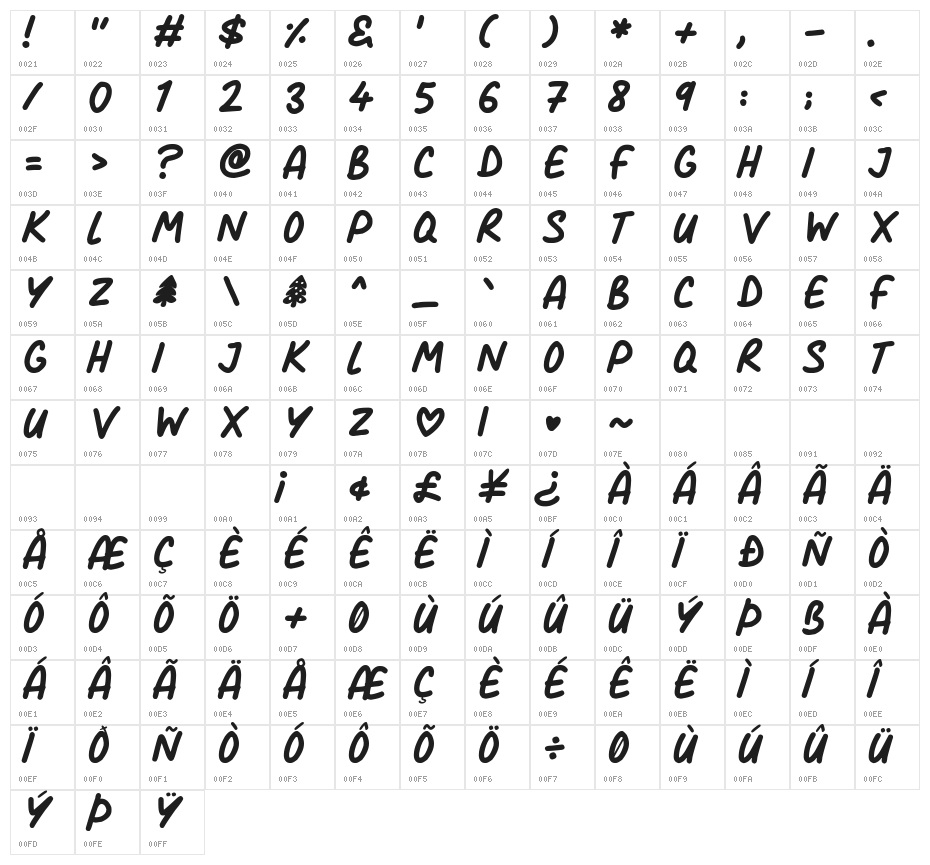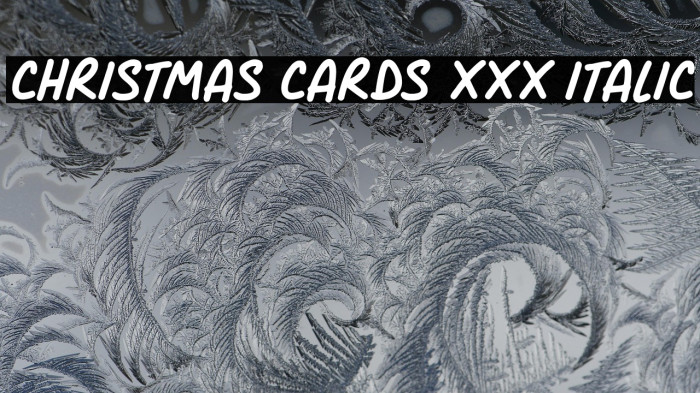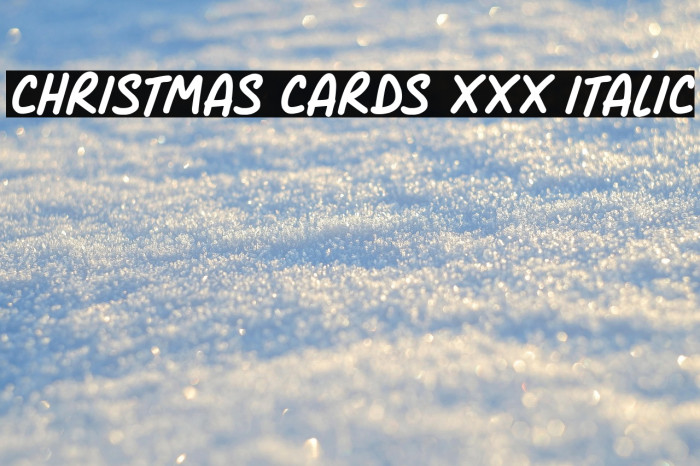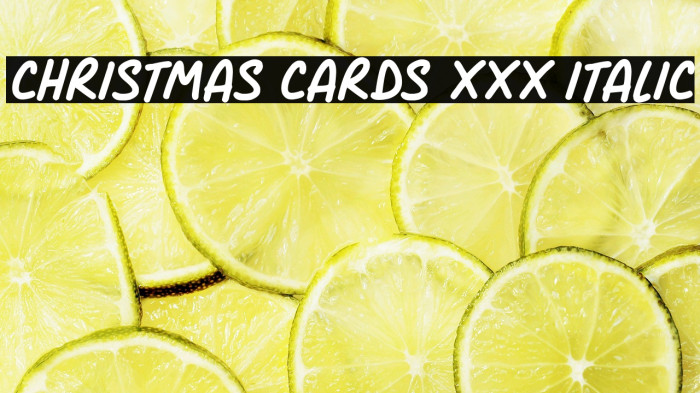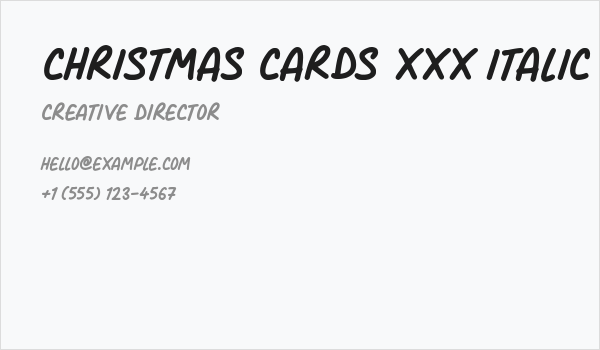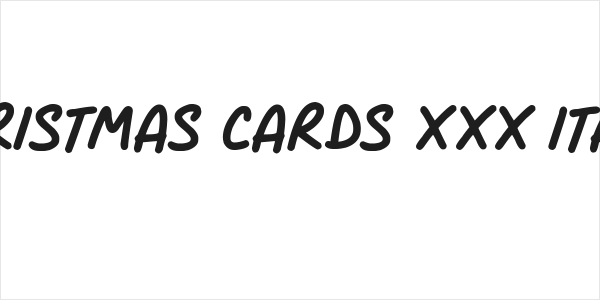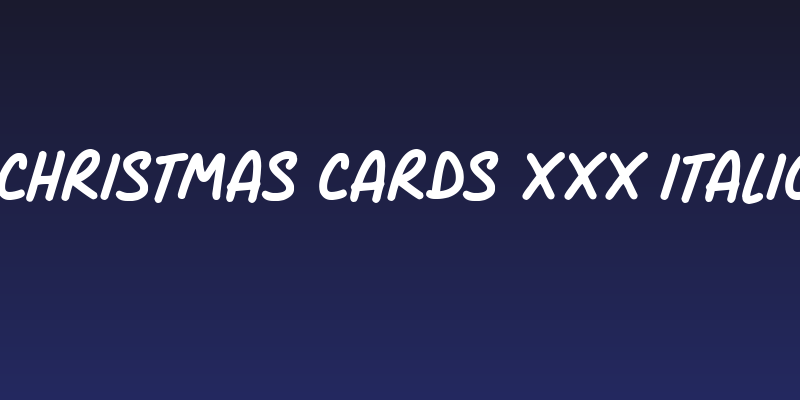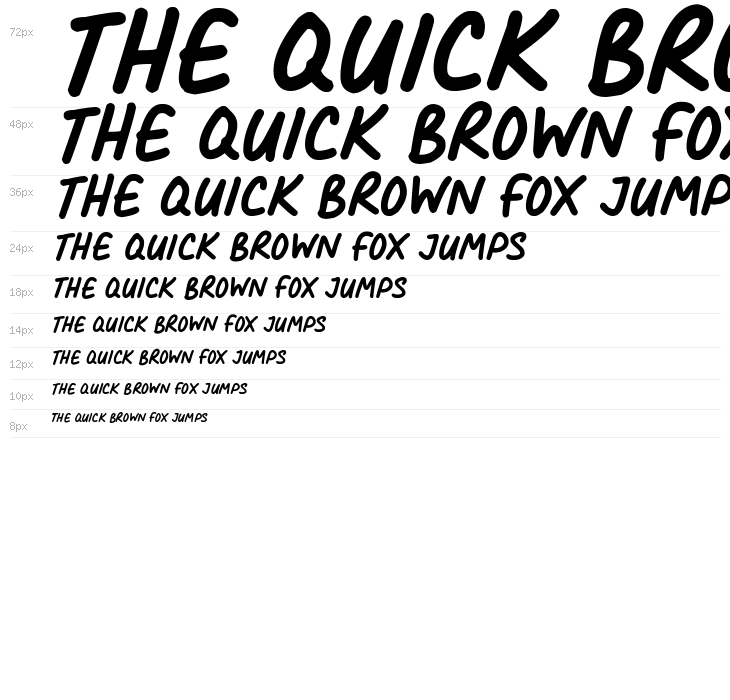
Christmas Cards xxx Italic Font
Christmas Cards xxx Italic Description
This font features a playful and dynamic script style with a handwritten appearance. The letters are bold and slightly slanted, giving a sense of movement and energy. The strokes are smooth and rounded, contributing to a friendly and approachable look. The uppercase and lowercase letters maintain a consistent style, with the lowercase letters being slightly smaller and more compact. The numbers are clear and legible, matching the overall style of the letters. Special characters are included, maintaining the same playful and bold aesthetic. This font is ideal for projects that require a personal touch or a casual, informal feel.